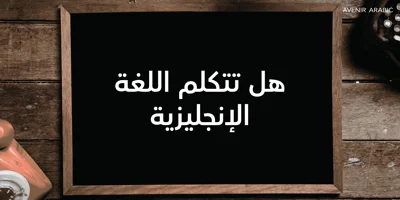
Avenir Arabic Font
Avenir Arabic Font is perfect for bilingual corporate branding, Middle Eastern market communications, international publishing projects, cultural organizations, educational materials, government documentation, financial services, healthcare communications, digital platforms, and multinational campaigns that require seamless Arabic-Latin script integration and professional presentation.
What makes Avenir Arabic Font truly exciting is its groundbreaking harmonization of Arabic calligraphic traditions with contemporary geometric design principles that creates unprecedented visual unity across languages. This exceptional typeface maintains the elegant flow and cultural authenticity of Arabic script while perfectly matching the clean, modern aesthetic of the renowned Avenir Latin family. The font's bilingual excellence and cultural sensitivity make it perfect for global brands seeking to communicate respectfully and effectively with Arabic-speaking audiences.
The Avenir Arabic Font family includes comprehensive weights and styles: Light, Regular, Medium, Bold, and Black variations that perfectly complement their Latin counterparts. Each family member maintains the distinctive geometric character while respecting Arabic typographic traditions and readability requirements. The extensive character set supports full Arabic language coverage and advanced OpenType features, making it suitable for professional multilingual applications.
When you choose Avenir Arabic Font, you're selecting a typography breakthrough that bridges cultures while maintaining design excellence. This versatile typeface excels in both print and digital environments, delivering exceptional readability and cultural appropriateness across all Arabic-speaking regions. Whether you're creating international brand identities, educational content, government communications, or digital platforms, this font provides the cross-cultural sophistication and professional quality that resonates with diverse audiences who value both aesthetic excellence and cultural authenticity.